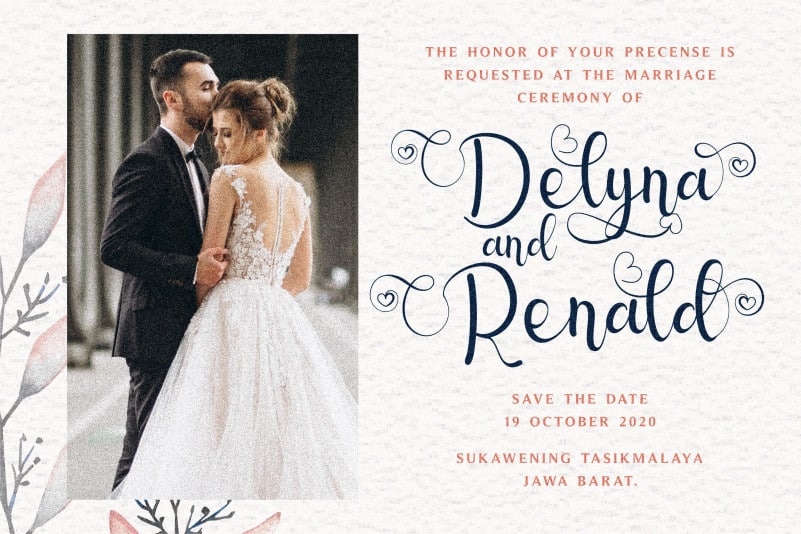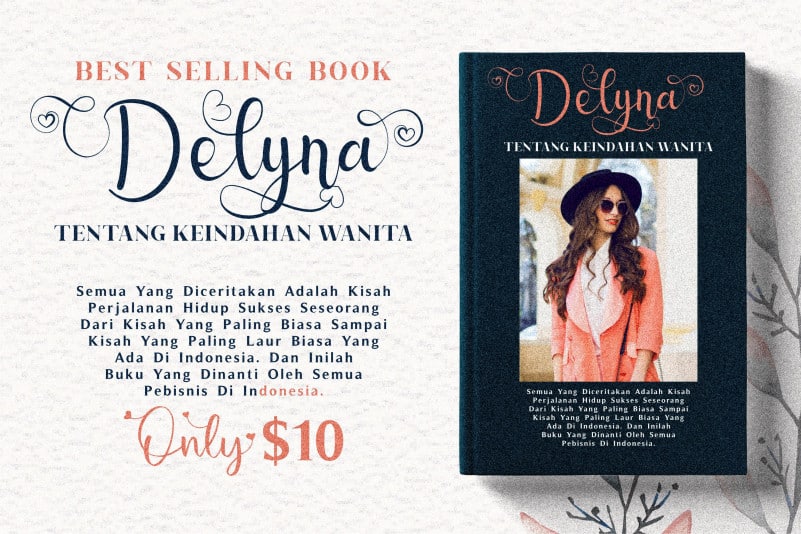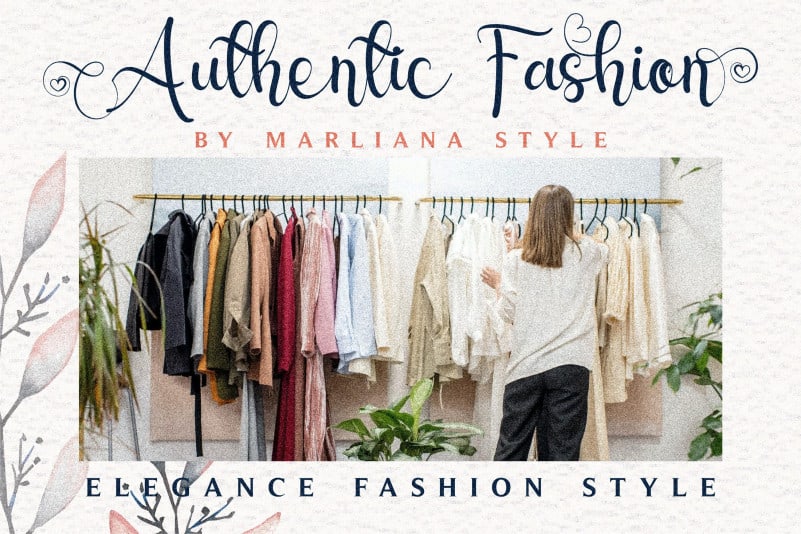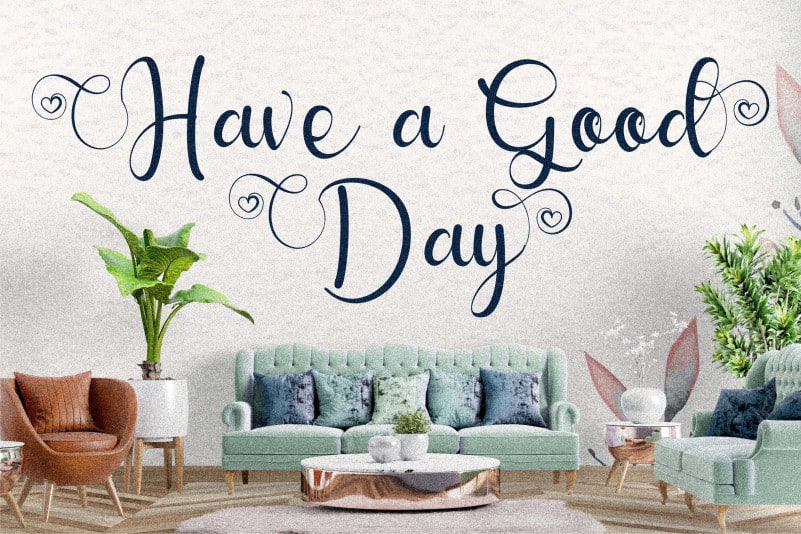
Delyna Calligraphy Font is a romantic handwritten font, featuring little hearts as ornaments. It is the ideal choice for Valentine’s Day letters or any other design that requires a sweet touch. Delyna is PUA encoded which means you can access all of the glyphs and swashes with ease!